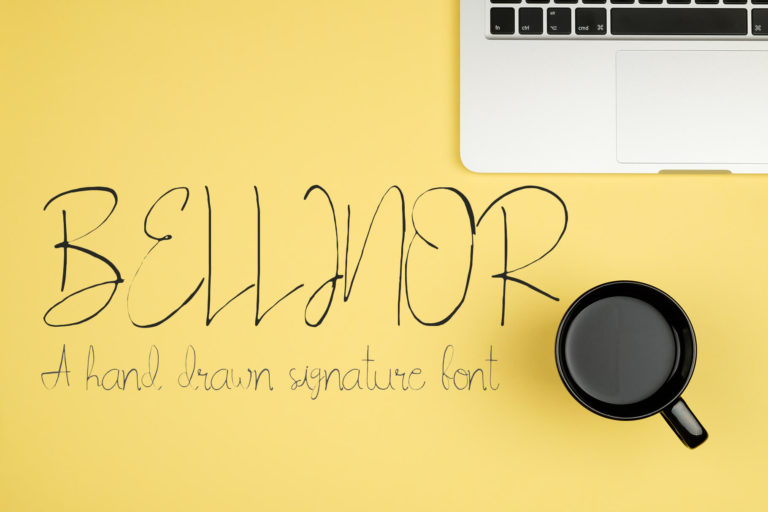
- Bellinor Handdrawn Signature Font
Bellinor handdrawn signature font is made with delicate, adorable touch. Bellinor comes up with 149 glyphs with complete set of endearing uppercase, lowercase, letters, numerals, a massive range of punctuation and ligatures. It is perfect for branding, event invites, wedding invites, lovely Instagram posts.
Bellinor Font Features:
- Uppercase Multilingual Letters
- Lowercase Multilingual Letters
- Non English Characters ( Latin Extended A )